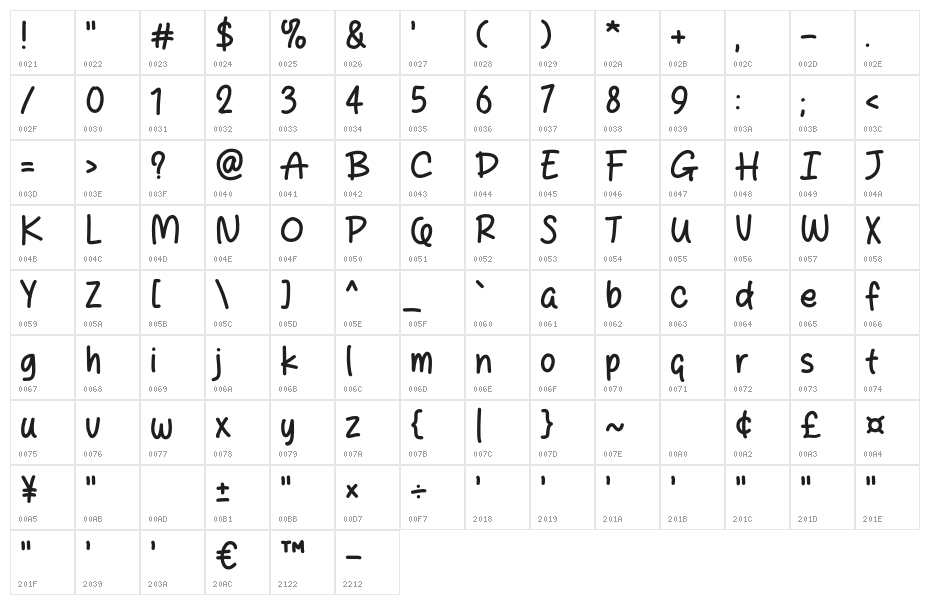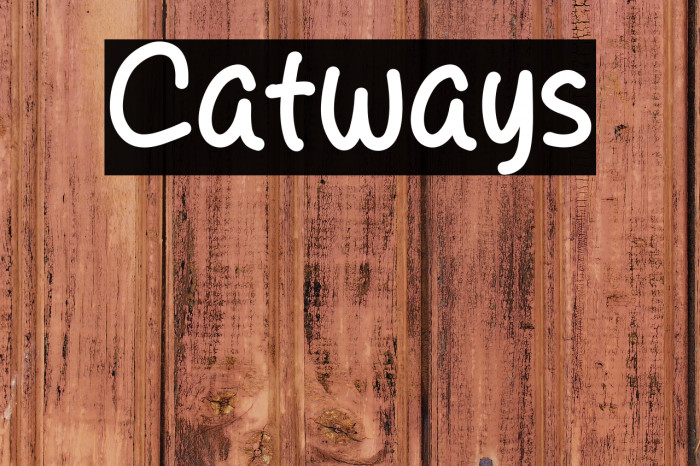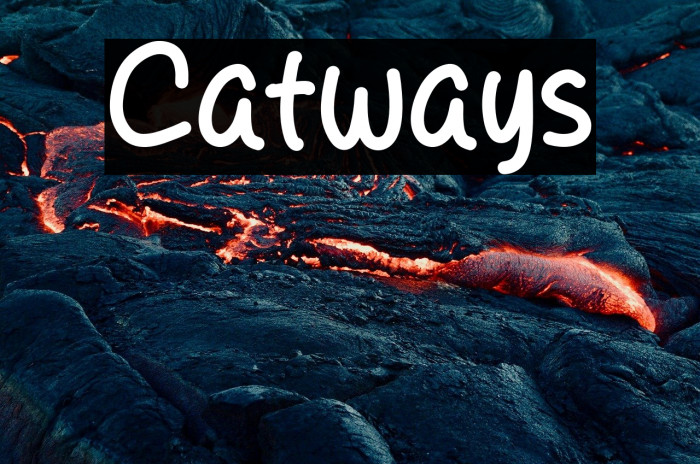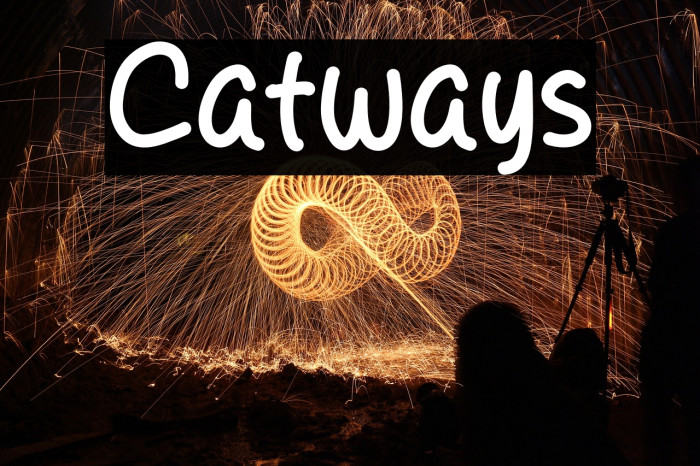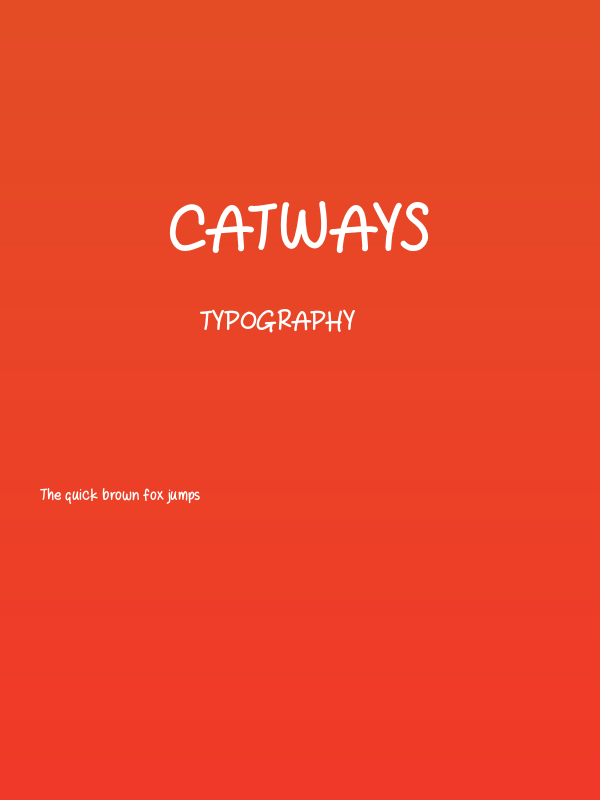
Catways Font
Catways Description
This playful and whimsical font features a handwritten style with a casual and friendly appearance. The letters are slightly irregular, adding a personal touch that mimics natural handwriting. The strokes are smooth and rounded, giving it a soft and approachable feel. It maintains a consistent weight throughout, ensuring readability while retaining its unique character. The font includes a full set of uppercase and lowercase letters, numbers, and a variety of special characters, making it versatile for different design needs.
| Overall Style | Casual, Playful |
| Use Case | Headlines, Informal text, Branding |
| Proposed Projects | Ideal for children's books, greeting cards, casual invitations, and playful branding projects. |